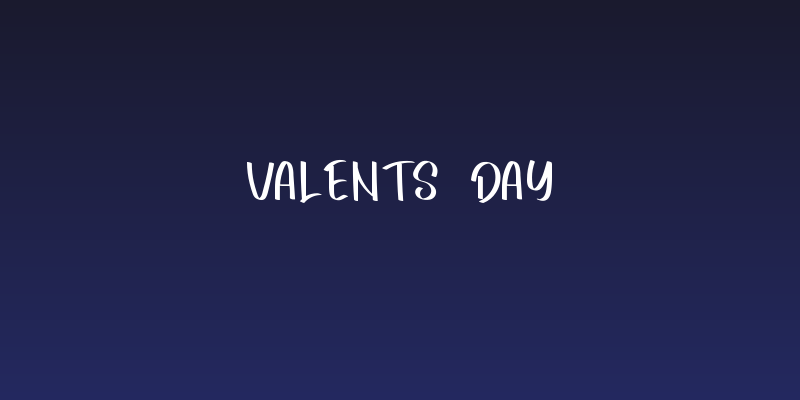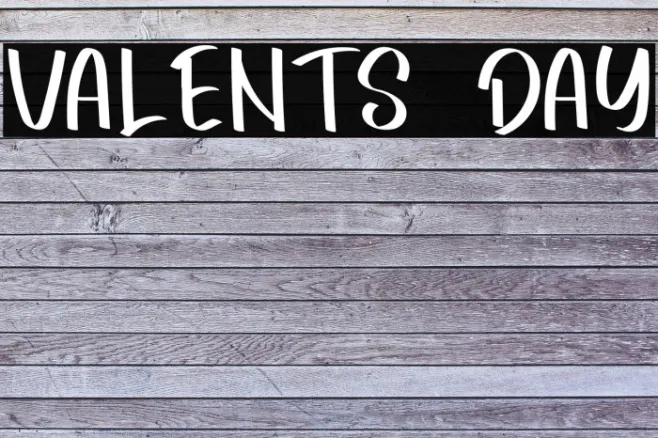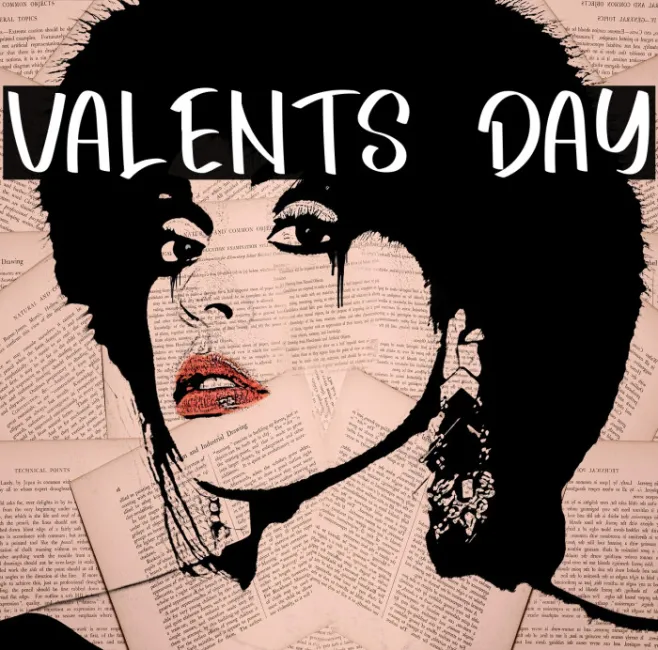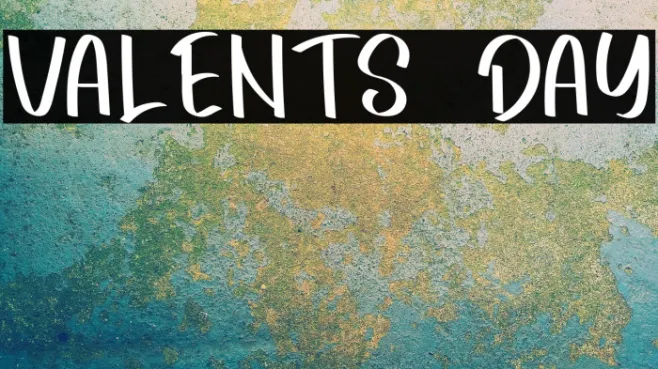
VALENTS DAY Font
VALENTS DAY Description
A playful and bold handwritten font with a casual and friendly appearance, featuring rounded edges and a slightly irregular baseline.
| Overall Style | Casual and friendly |
| Proposed Projects | Greeting cards, invitations, posters, social media graphics. |